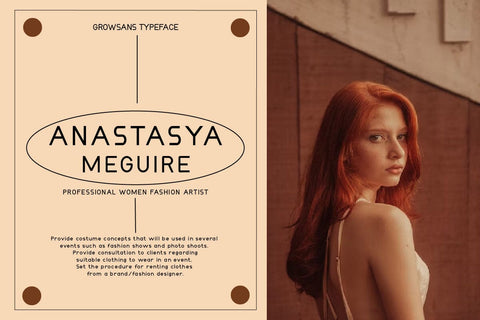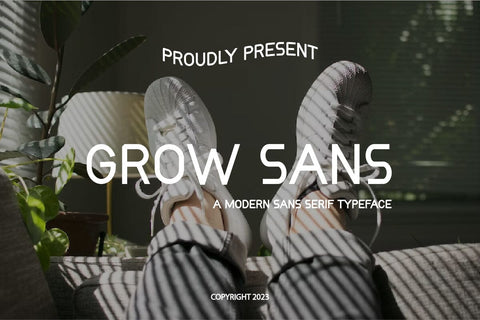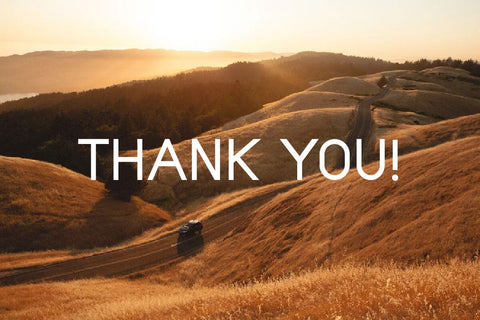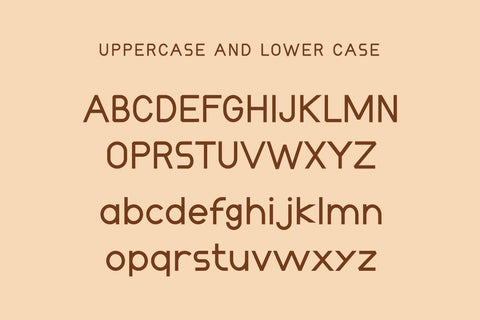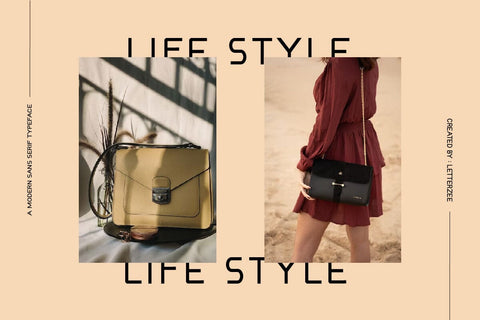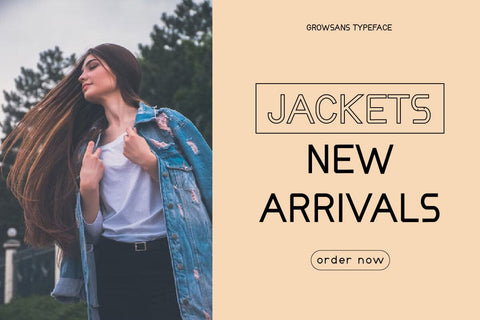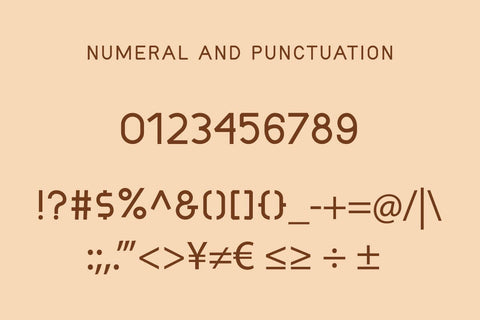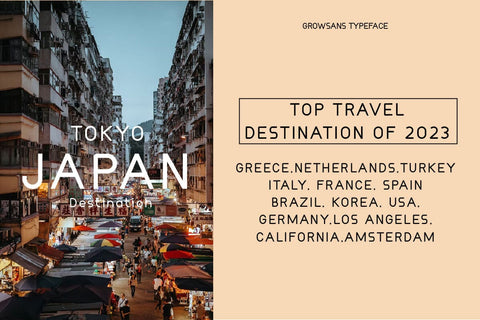
Growsans - Modern Sans Serif Font
Hi, Introducing Growsans - Modern Sans Serif Font
A font with a modern style based on a minimalist monoline shape that is touched in a modern and elegant style. This font is perfect for a variety of creative needs such as printing, books, titles, headlines, photography, embellishments, branding, logos, and more.